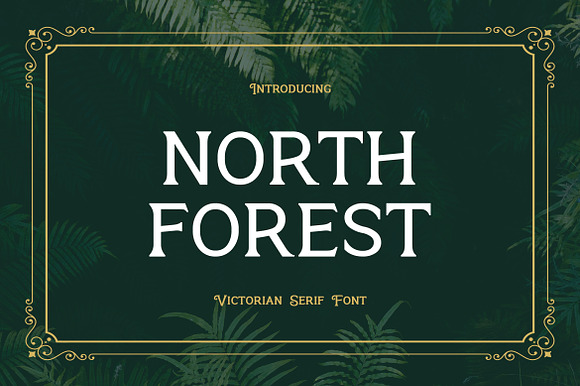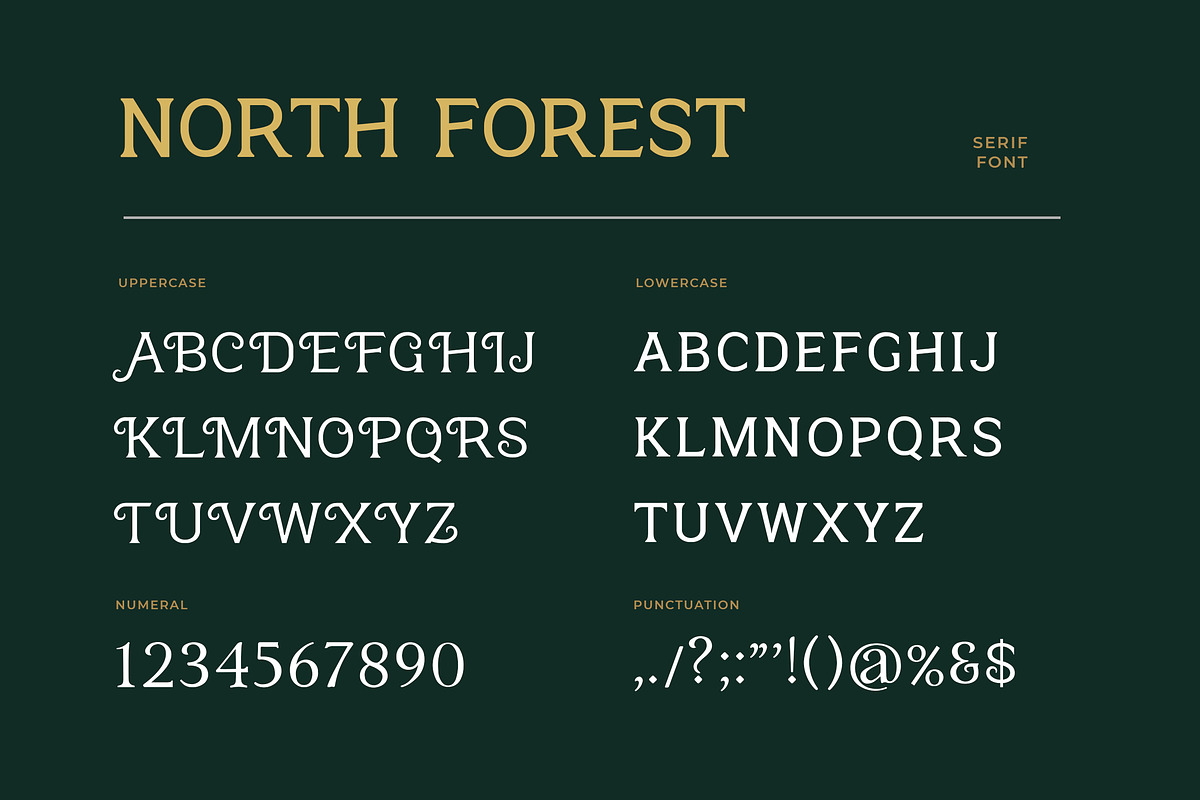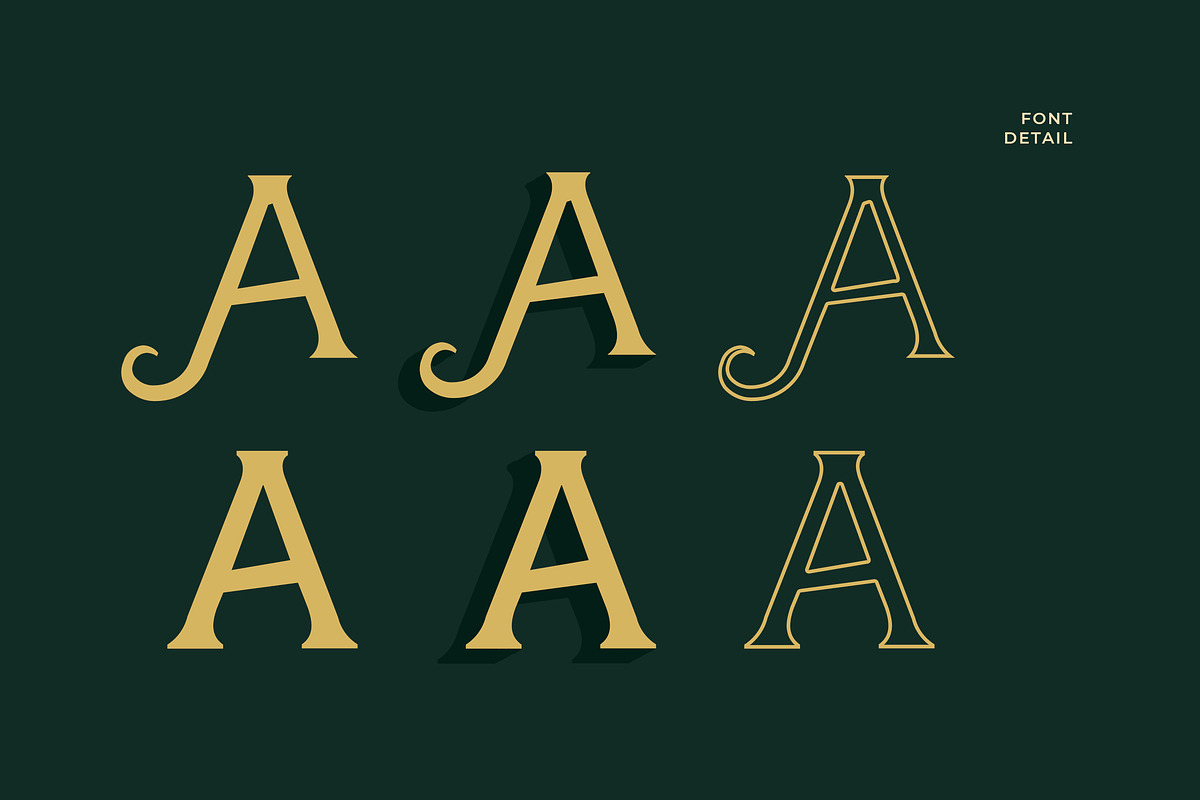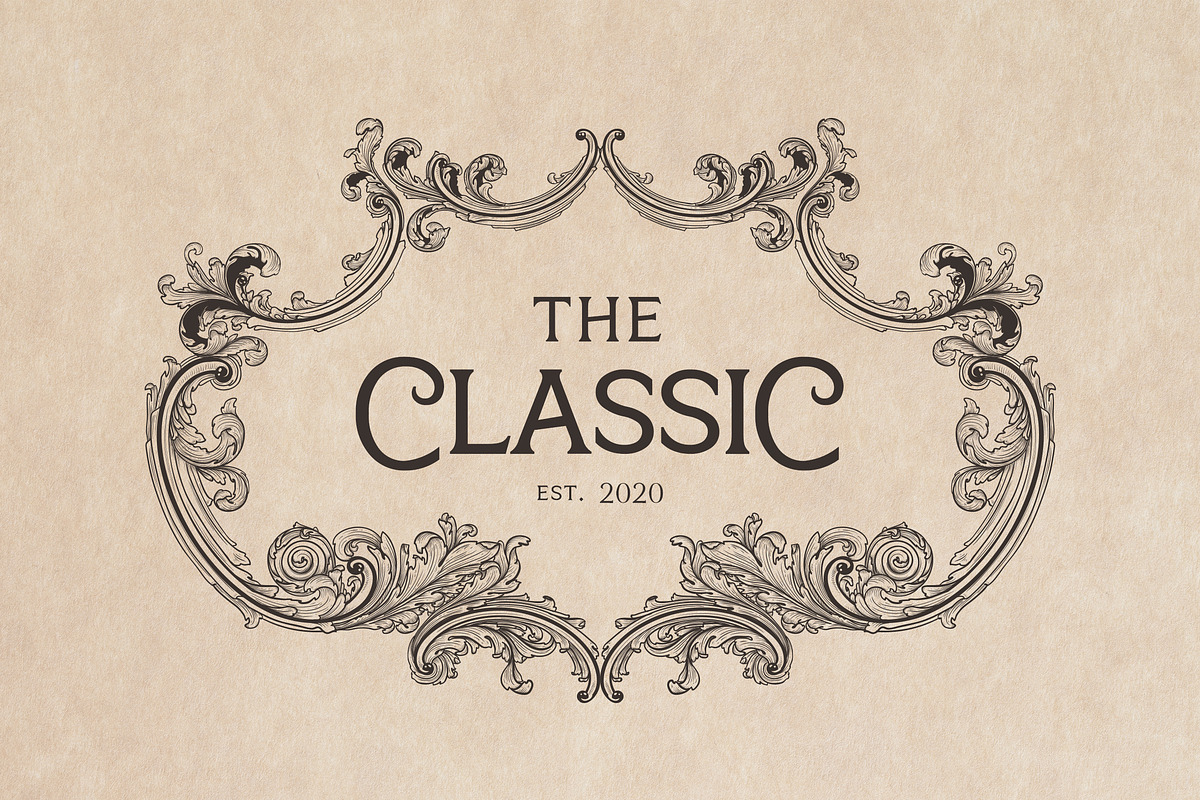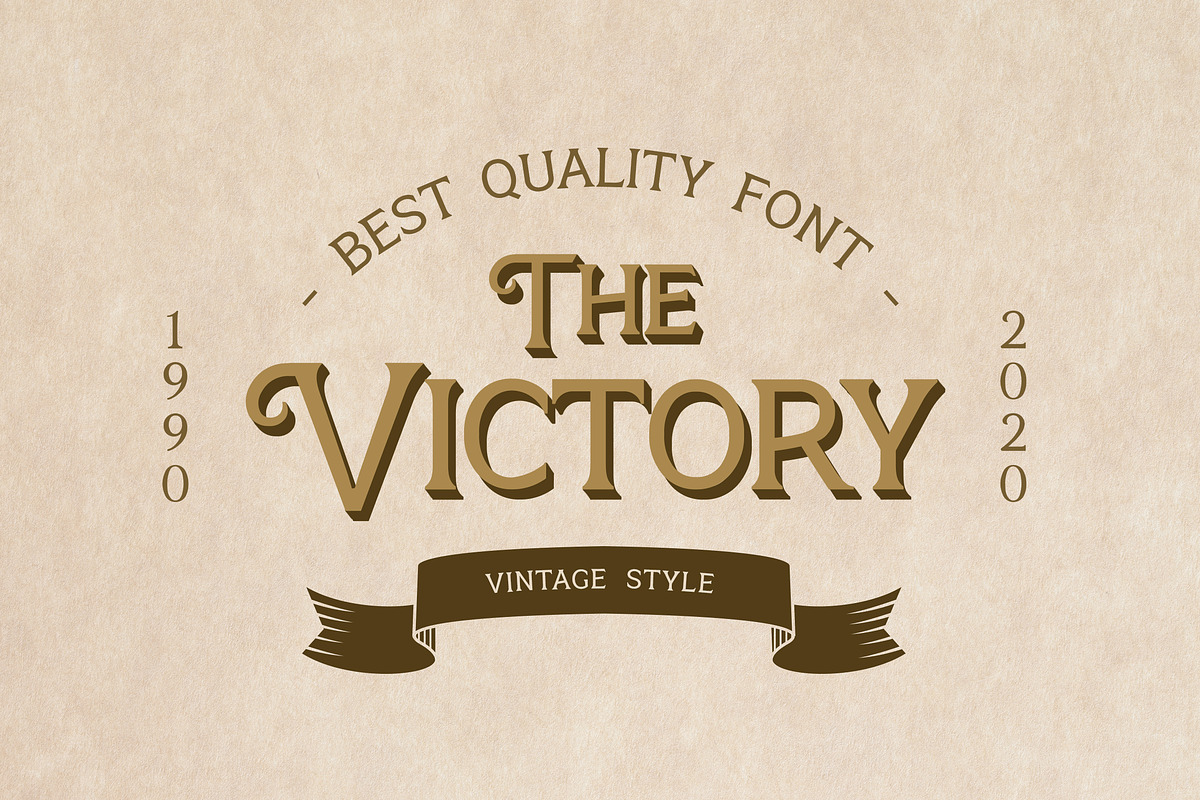
North Forest Vintage Serif Font
North Forest Vintage vintage serif typeface that combines classic style fonts moderated with a touch of minimalist design, produces beautiful and elegant fonts. Very suitable various alternative styles that allow for logos, posters, covers, main packaging, t-shirts, business cards, wedding cards and more, so what are you waiting for?
Why North Forest Vintage Serif Font is worth a look
North Forest Vintage Serif Font by UICreative fits naturally into Branding, posters, packaging, typography.